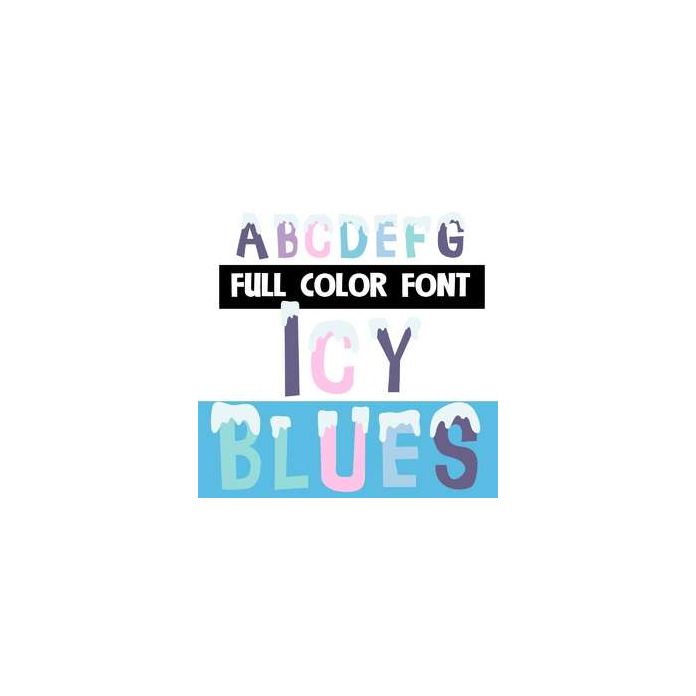
This full color font is looks like frosty-cold lettering dripping in ice. Please note color fonts will show as black in non compatible programs. This font type is compatible with Silhouette Studio.